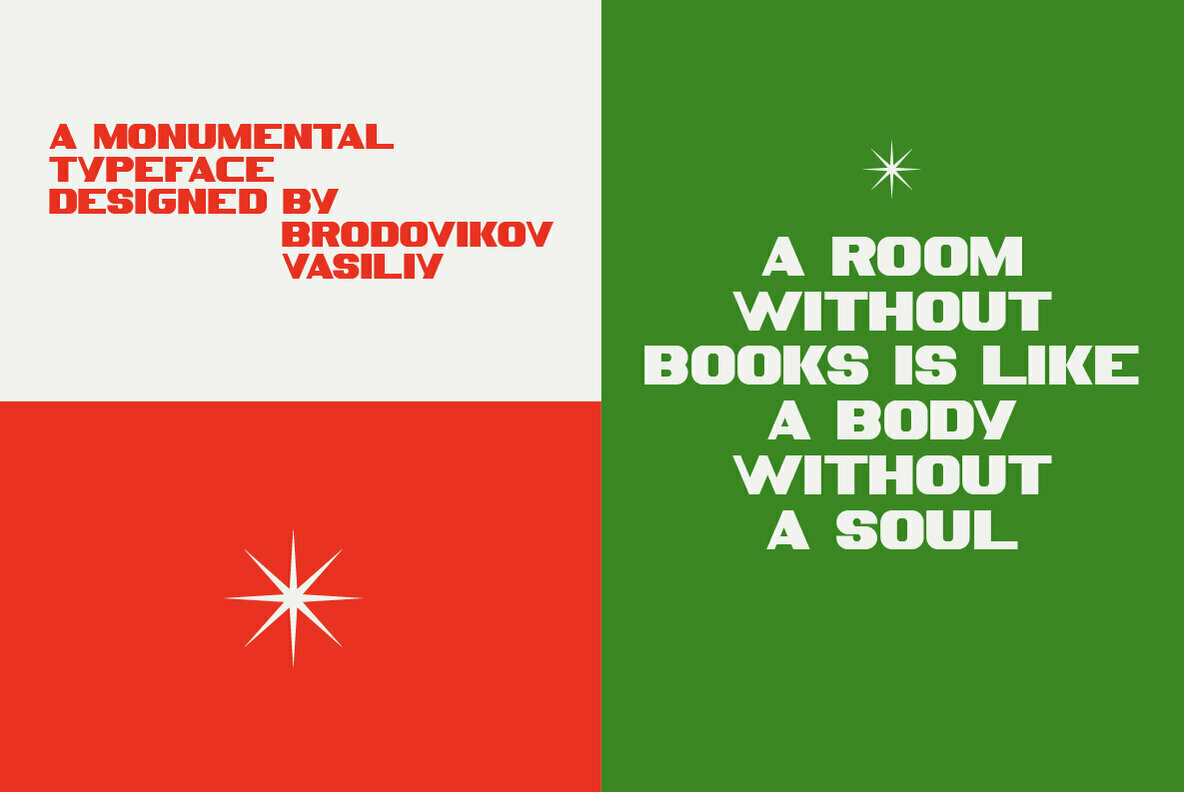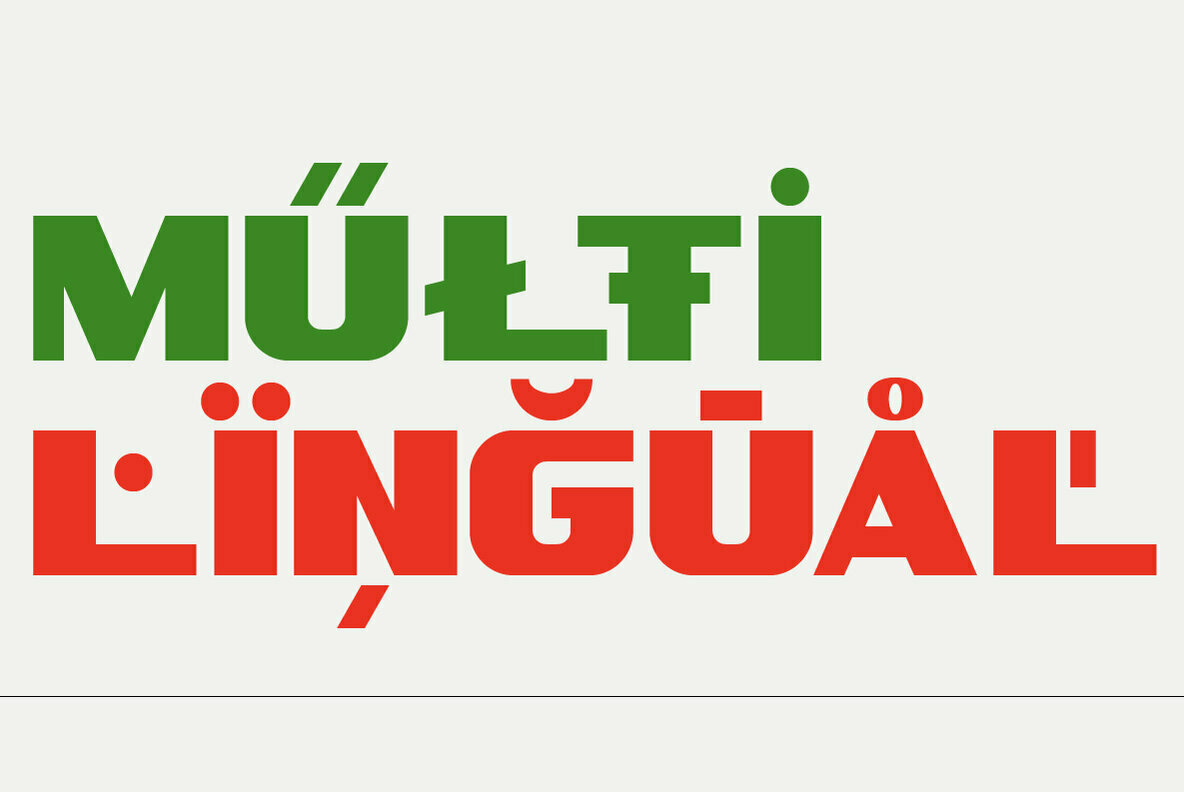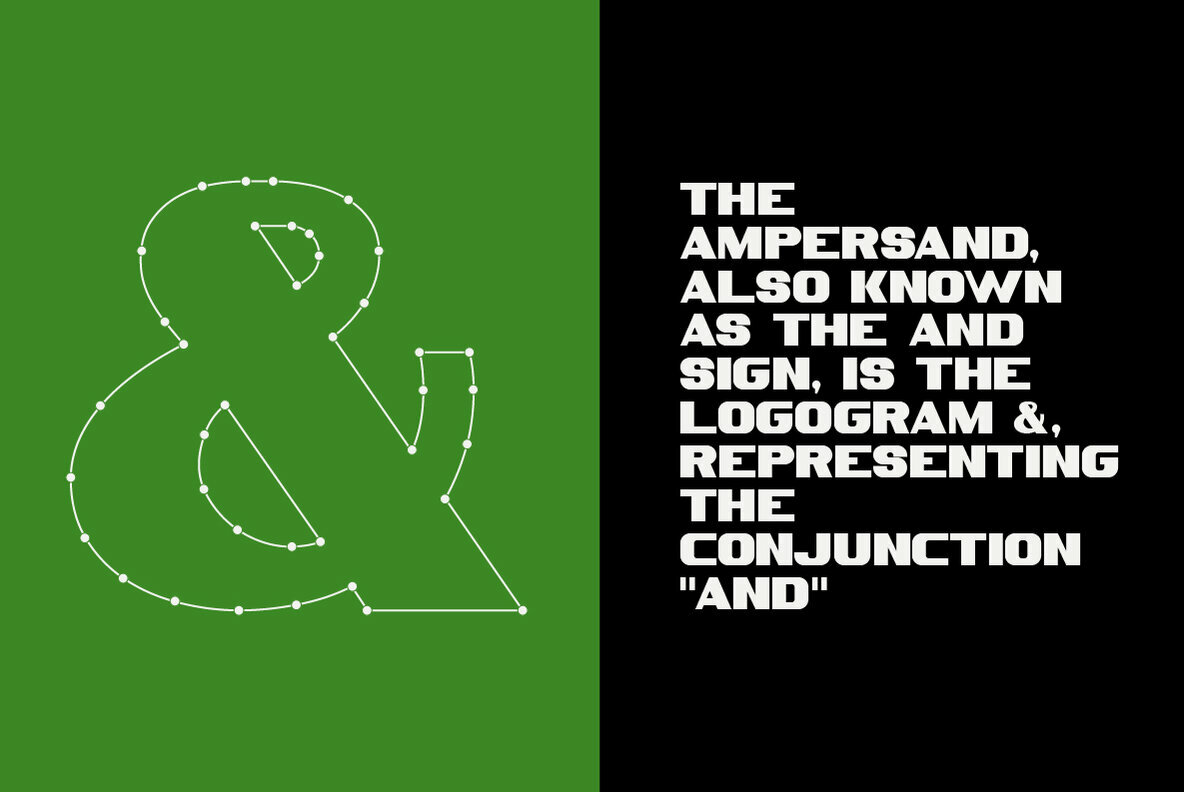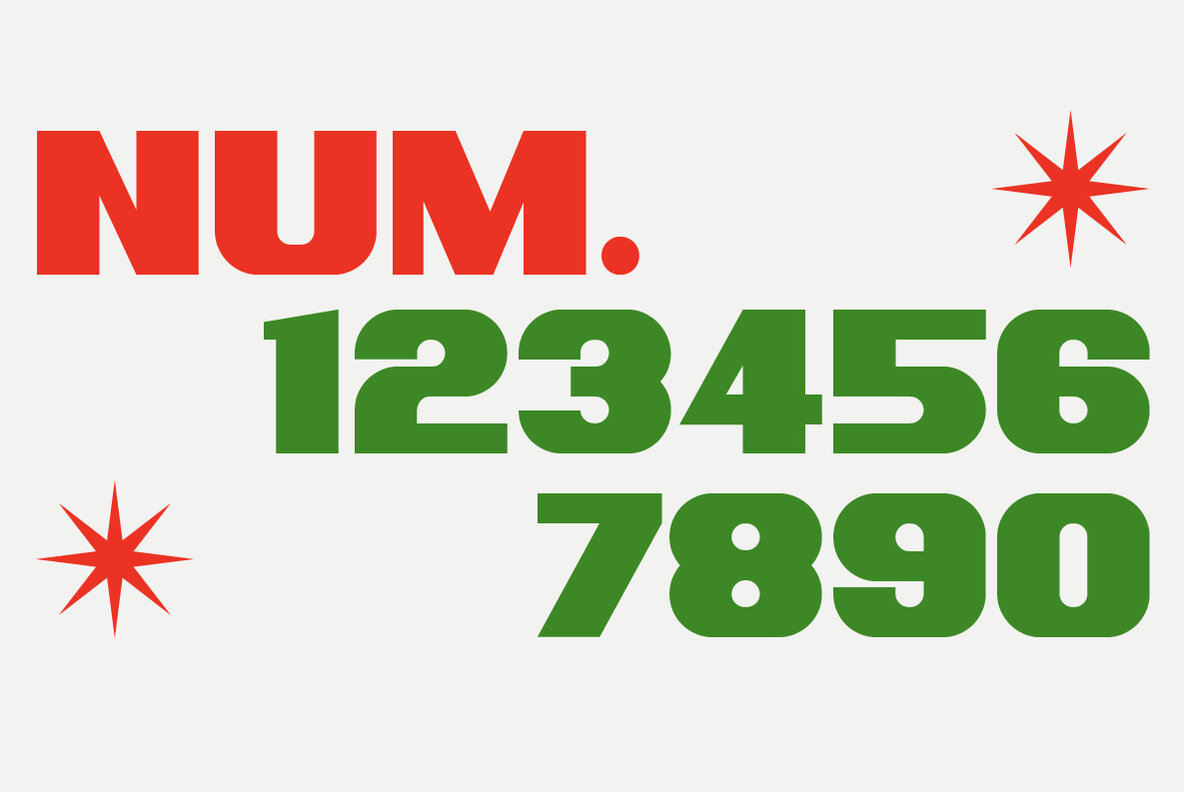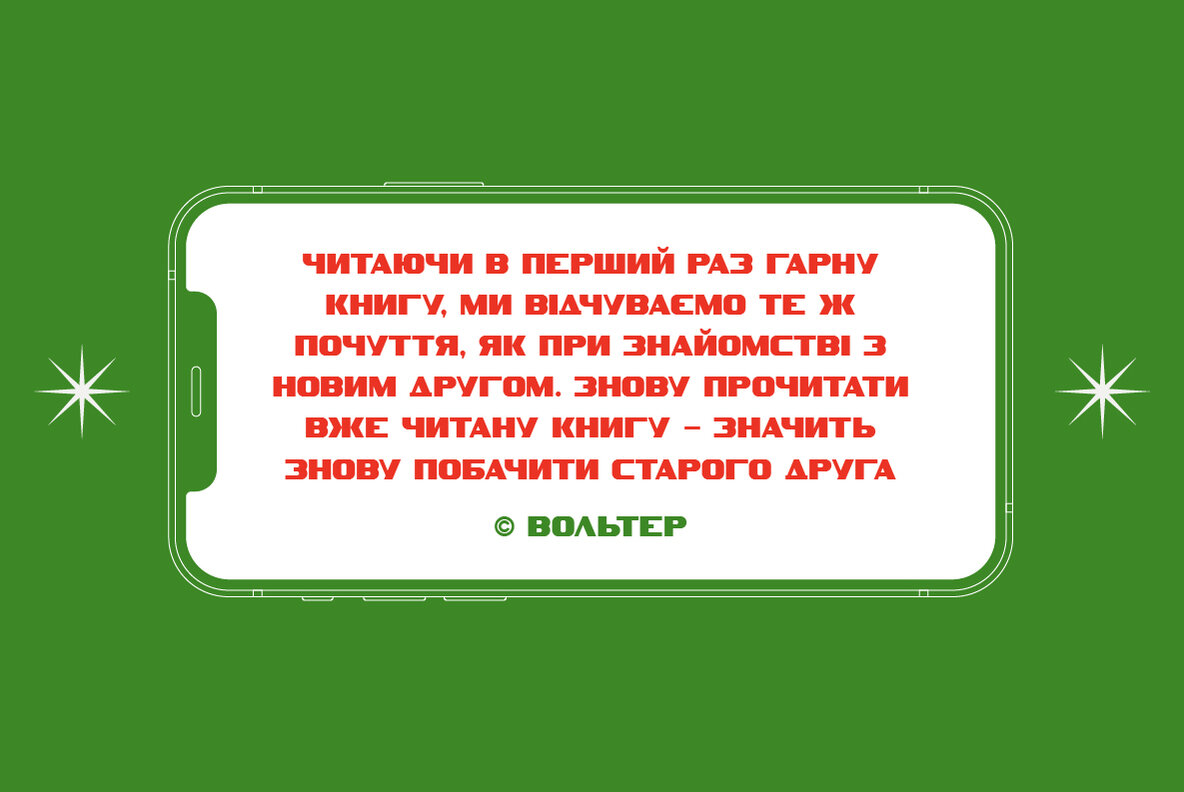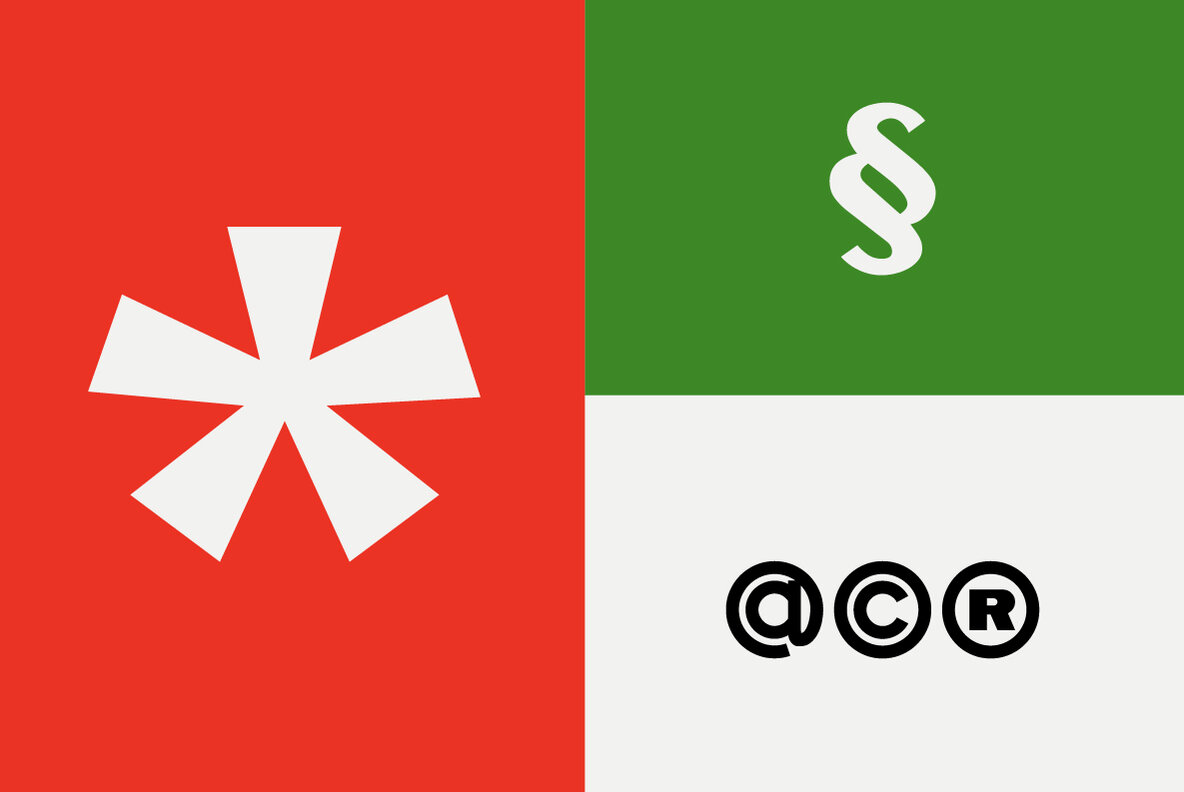
SK Akademkniga Font
SK Akademkniga Regular
SK Akademkniga is a monumental classic sans serif with medium contrast. Its strict form emphasizes the uniqueness of each symbol. The typeface supports many languages, including Cyrillic and extended Latin. SK Akademkniga is great for poster design, titles and texts. It also has a versatile geometry, which makes it a great help in work, whether it is graphic design or web design.